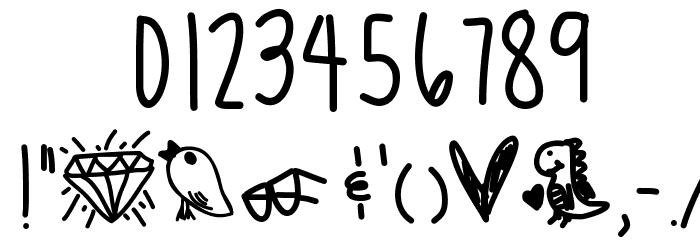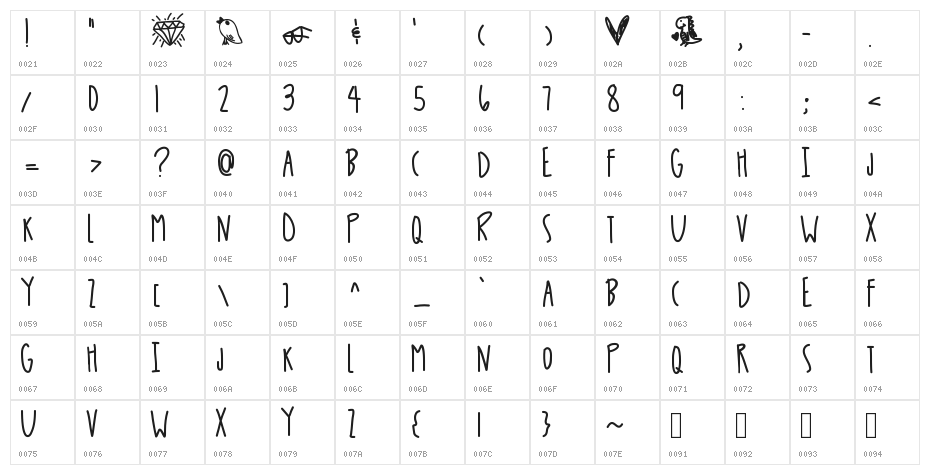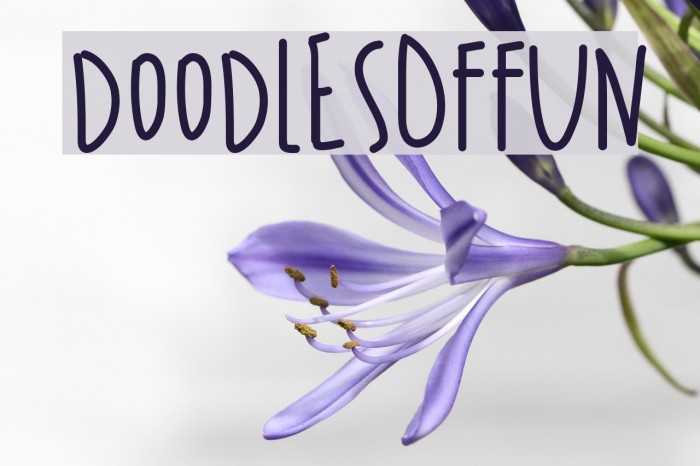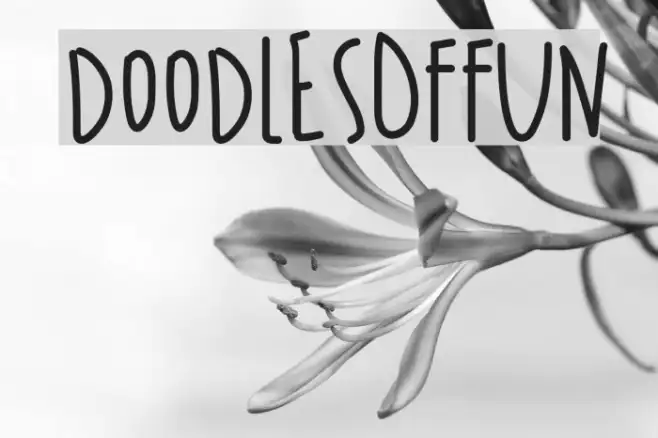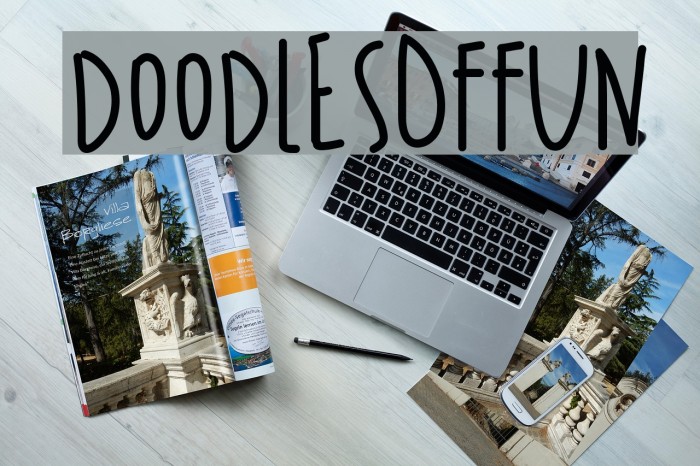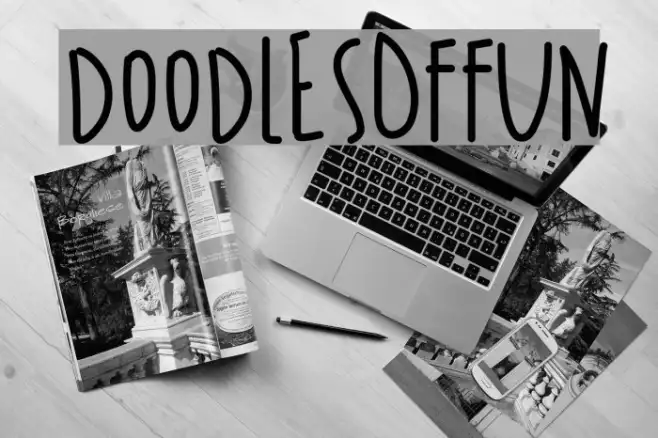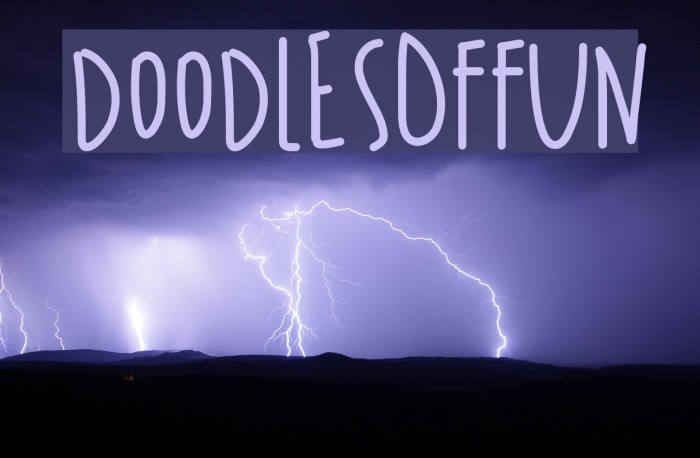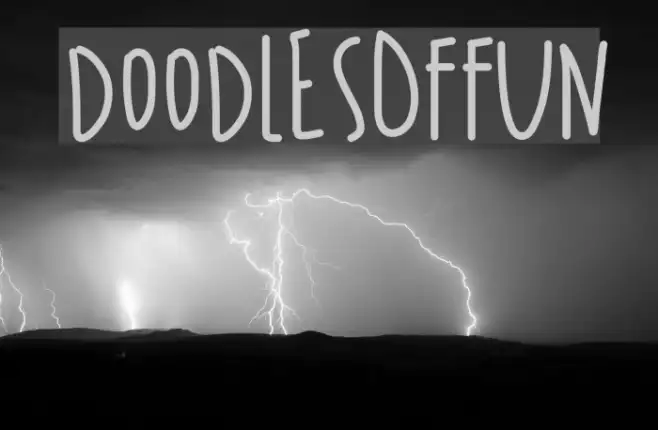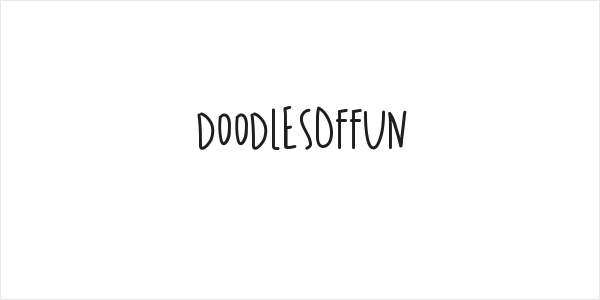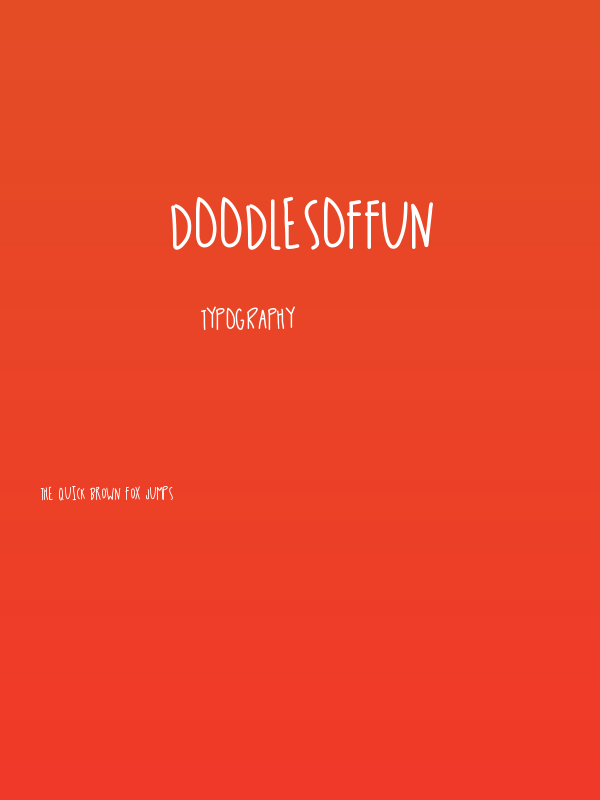
DoodlesOfFun Font
DoodlesOfFun Description
This playful and whimsical font features a hand-drawn style with irregular, slightly wobbly lines that give it a casual and fun appearance. The characters are tall and narrow, with a consistent stroke width that maintains readability while adding a touch of personality. The uppercase and lowercase letters are distinct yet harmonize well together, and the numbers follow the same playful design. Special characters include charming doodles like a diamond, bird, and dinosaur, adding to the font's quirky charm. This font is perfect for projects that require a lighthearted and informal touch.